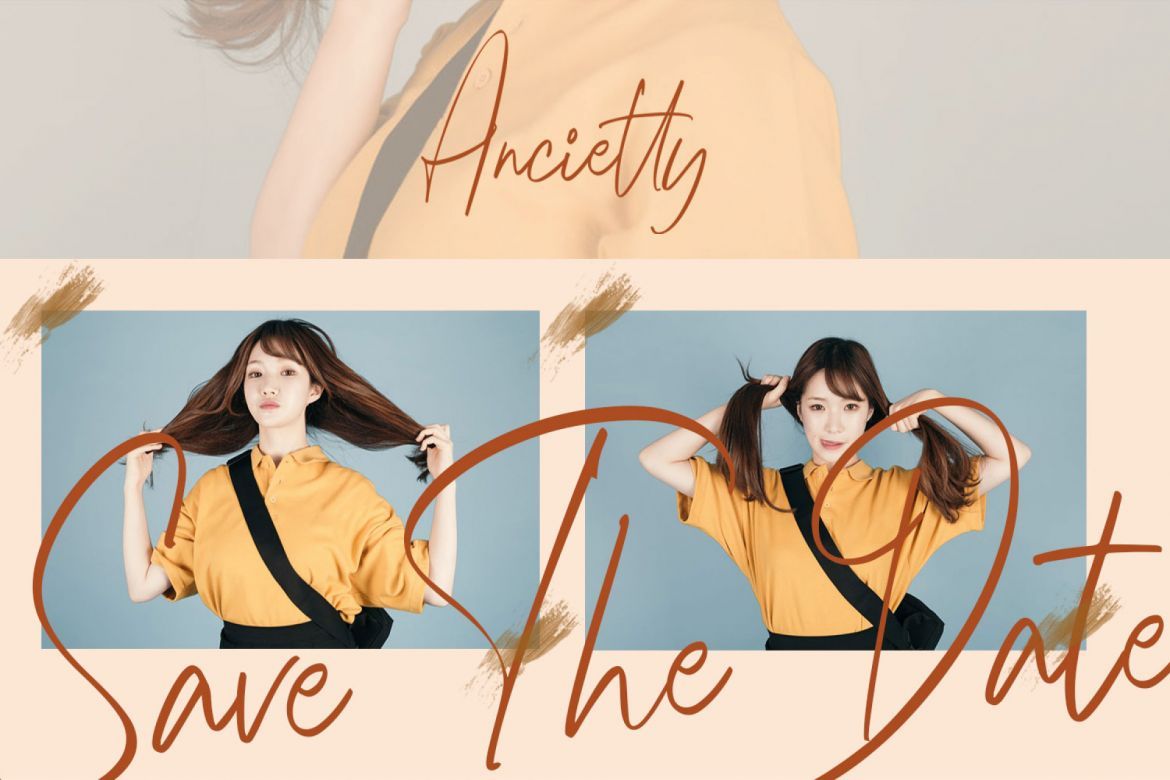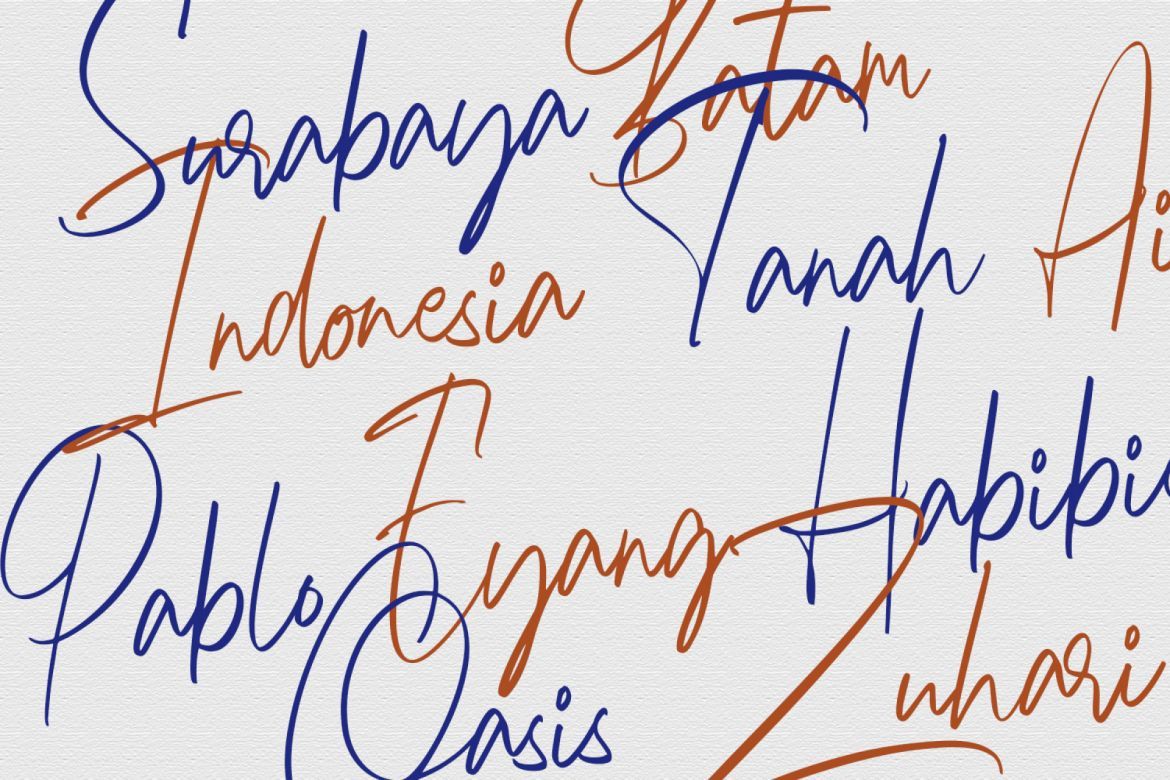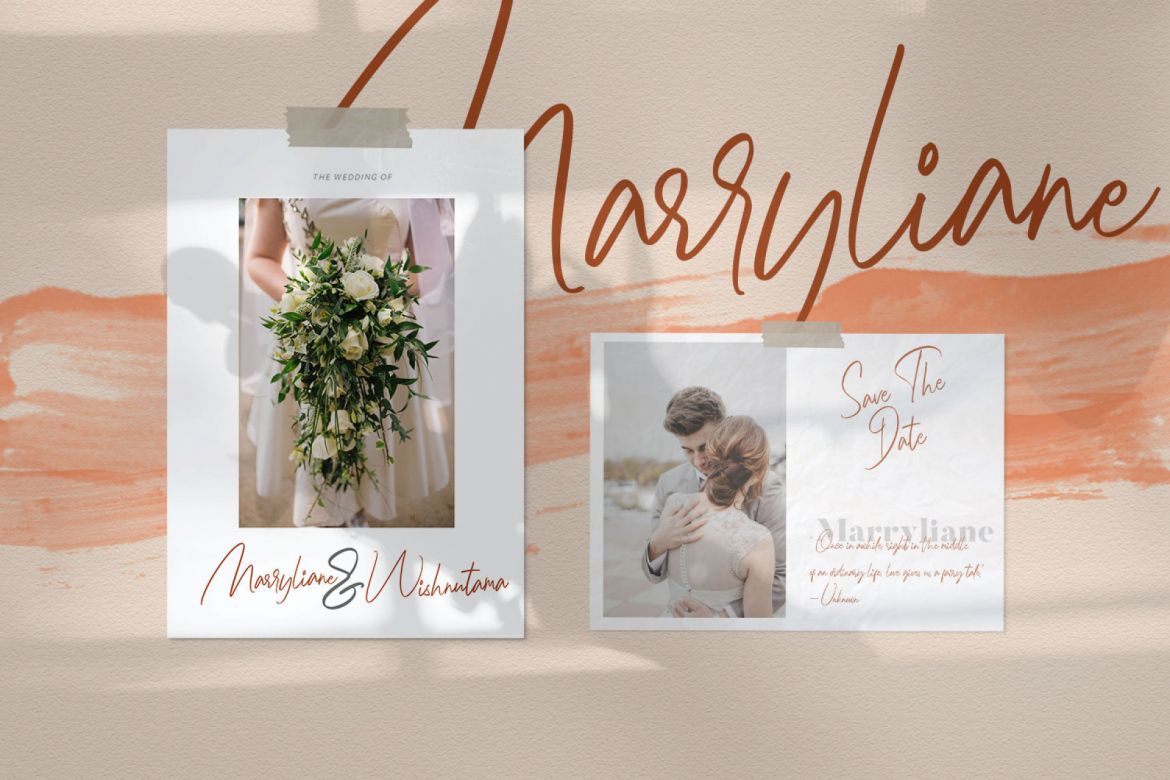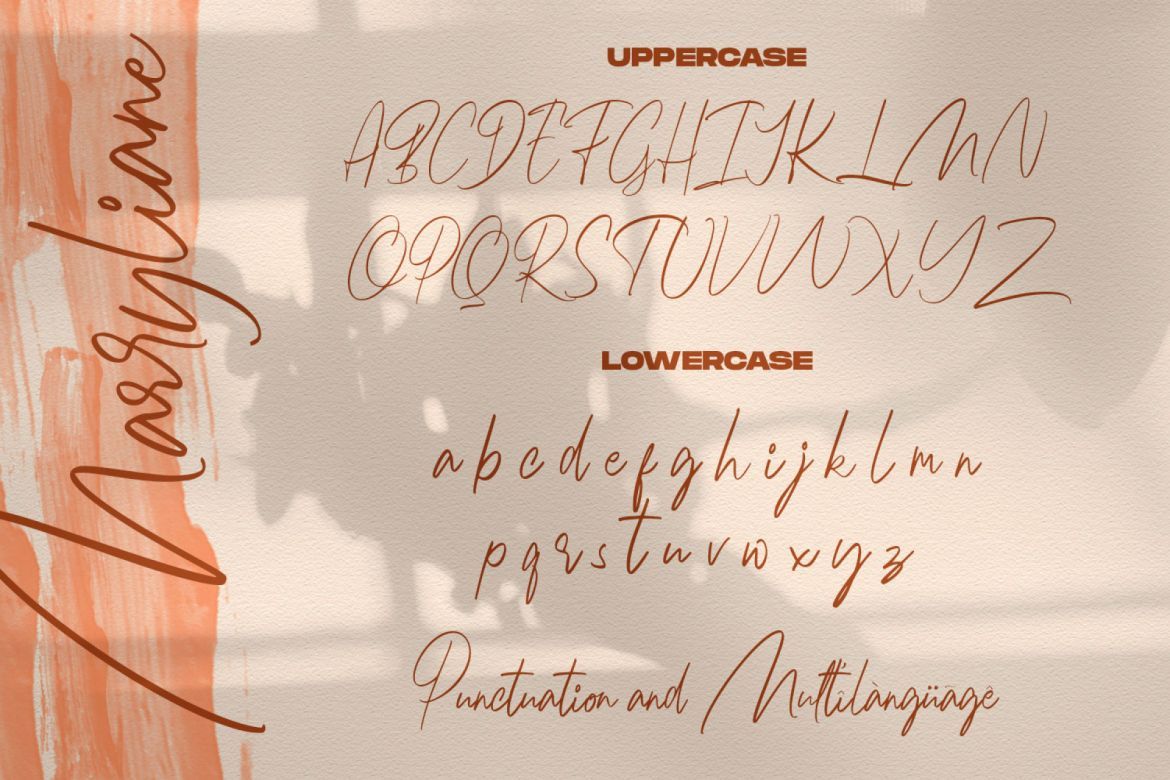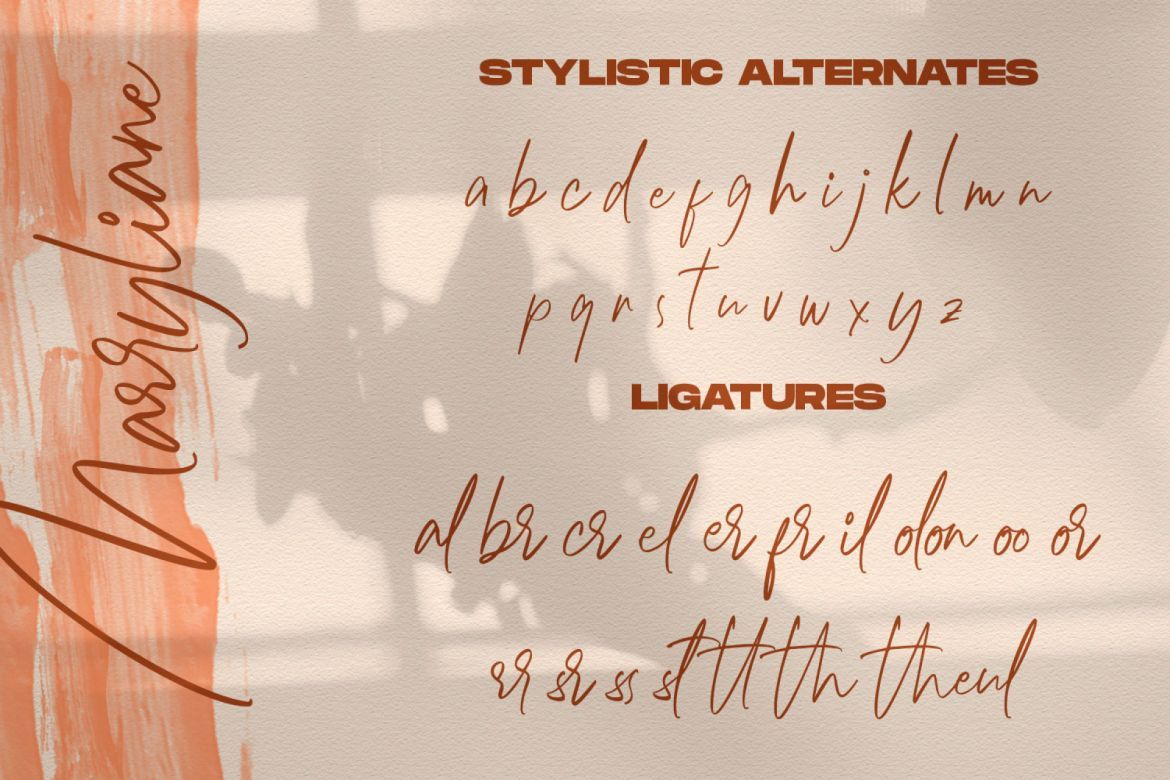
Marryliane Handwriting Font
Marryliane is a modern signature, It is perfect for blogging, social media, branding, product packaging, wedding invitations, branding, headlines, signage, labels, signature, book covers, posters, quotes and more.
Features